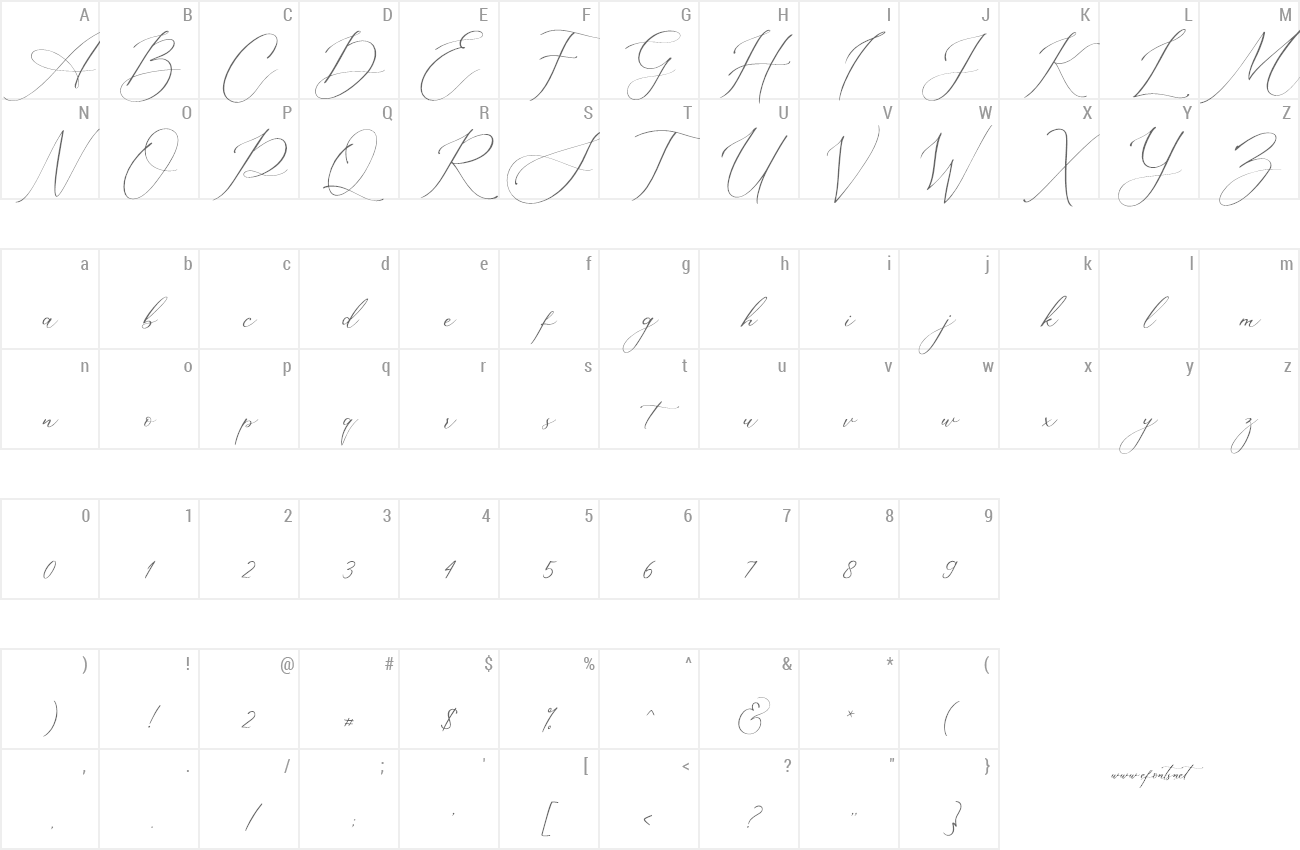
| Font name: | Muttaqin |
| Author: | Hasan Jasman |
| Note by Hasan Jasman | |
�Muttaqin� is a modern calligraphy font with a handwritten feel, it is perfect for branding, wedding invitation, cards, quotes, design and more. �Muttaqin� includes full set of lovely uppercase and lowercase letters, multilingual symbols, ligatures, numerals and punctuation. All lowercase letters include beautiful ending swashes, giving it a fabulous look. Beautiful swashes is easy to use, if you don�t have a program supporting the OpenType feature, you only need to add two underlines (_) after lowercase letters, for example a__ (you can see on presentation pictures). NOTE : This pruduct is for PERSONAL USE ONLY! But any donation are very appreciated. Paypal account for donation: https://www.paypal.me/hasanjasman Link to purchase full version and commercial license: https://www.creativefabrica.com/product/muttaq%c3%adn/ Please visit our store for more font: https://www.creativefabrica.com/designer/hasan-jasman-2/ If there is a problem, question, or anything about my fonts, please sent an email to hsnjasman@gmail.com Thank you, Hasan |